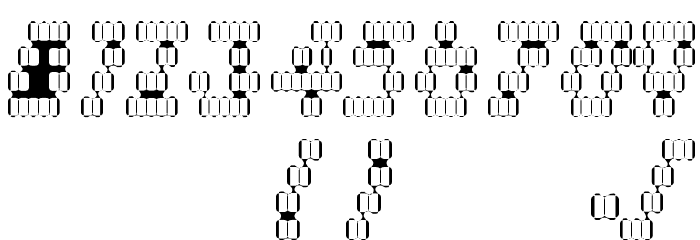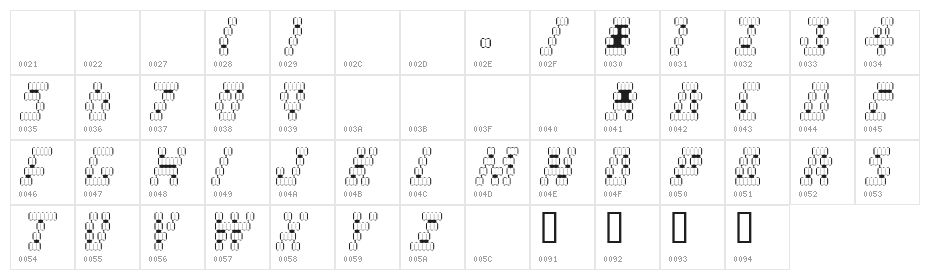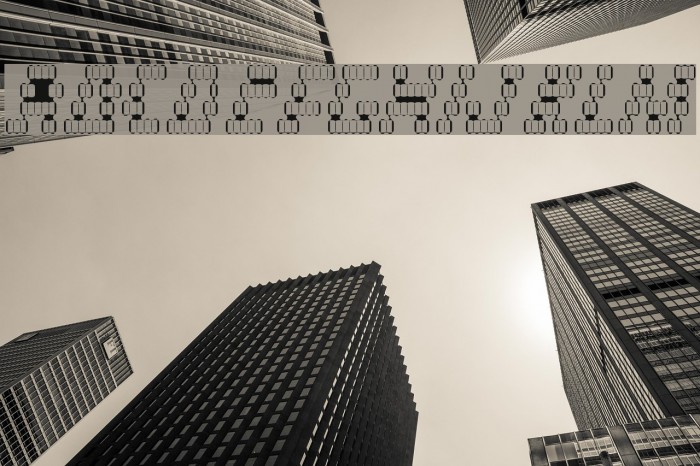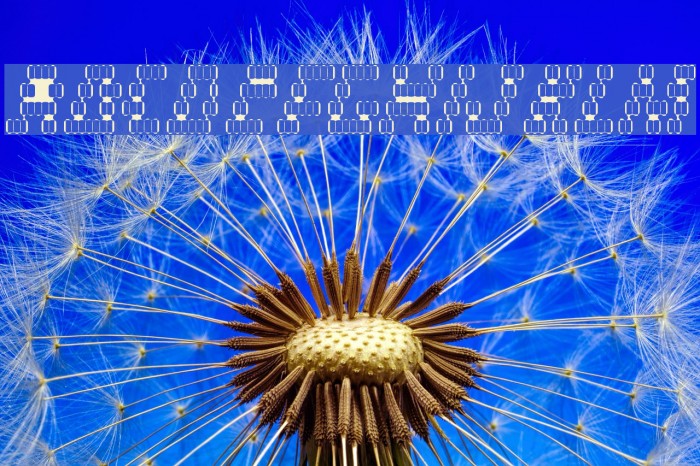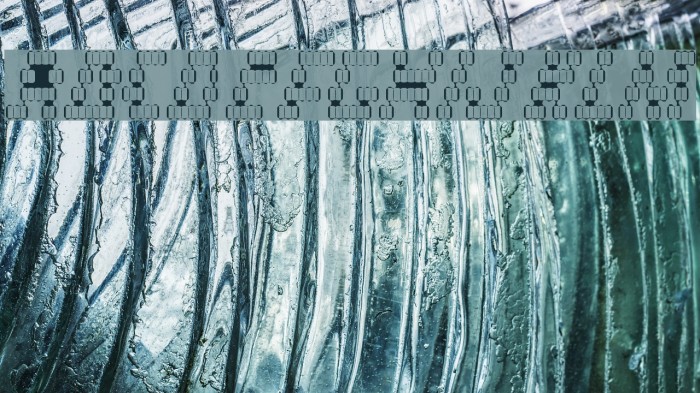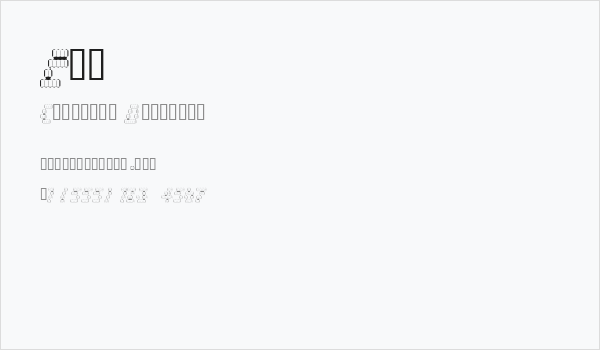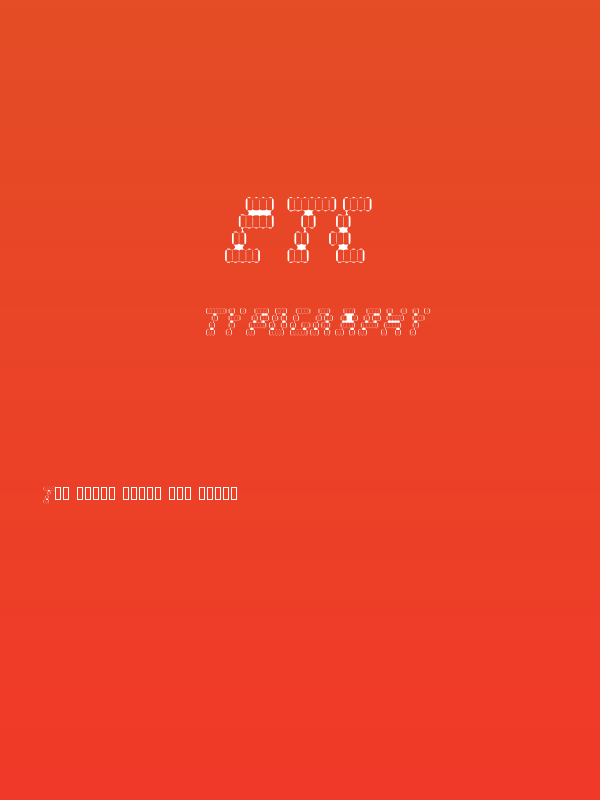
Etc Font
Etc Description
This font features a highly decorative and abstract design, characterized by its use of geometric shapes and patterns. Each character is constructed from a series of interconnected blocks and lines, creating a visually complex and intricate appearance. The font lacks traditional letterforms, instead opting for a unique and artistic representation of each character. This design choice makes it stand out as a bold and creative option for projects that require a distinct and unconventional aesthetic.
| Use Case | Logos, Posters, Creative Branding |
| Proposed Projects | Ideal for artistic projects, posters, album covers, and creative branding that seeks a unique and eye-catching style. |